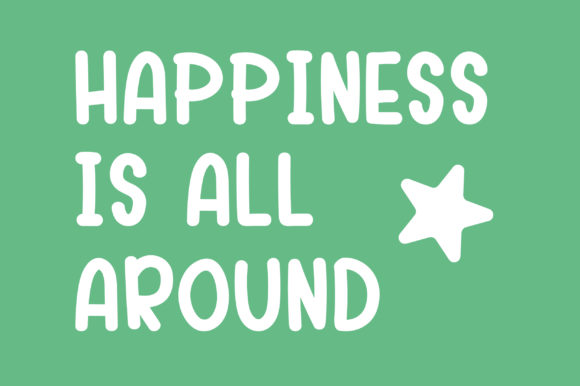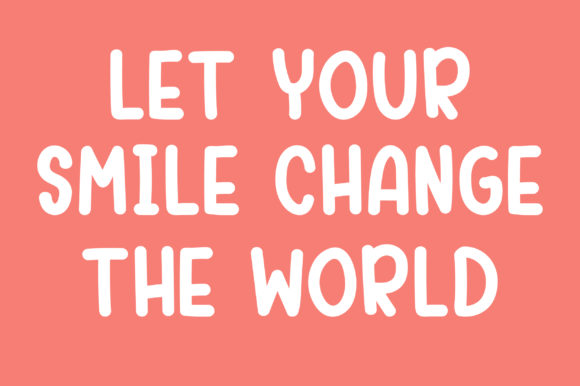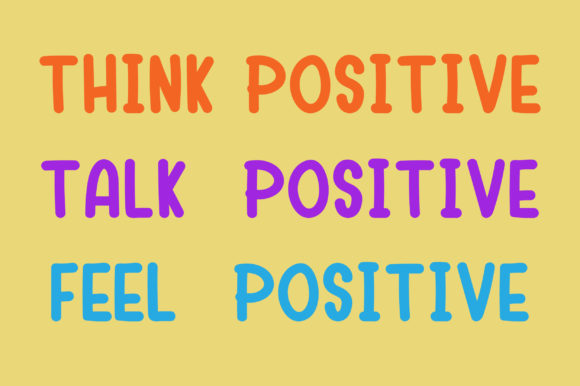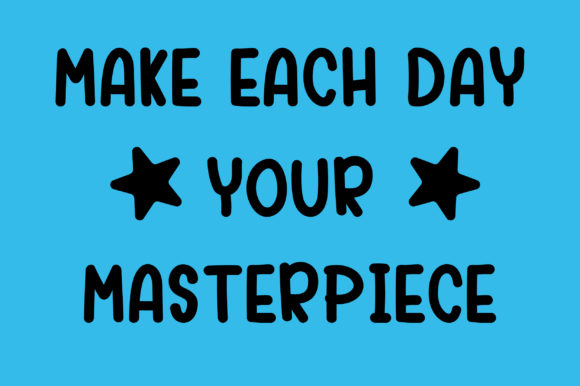
Dear Reindeer Font
About Dear Reindeer Font
Dear Reindeer is a cute handwritten font with a cheerful feel. Whether you’re looking for fonts for Instagram or calligraphy scripts for DIY projects, Dear Reindeer will turn any creative idea into a true piece of art!